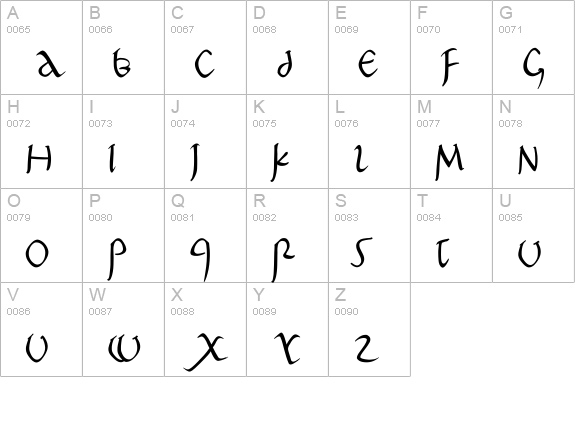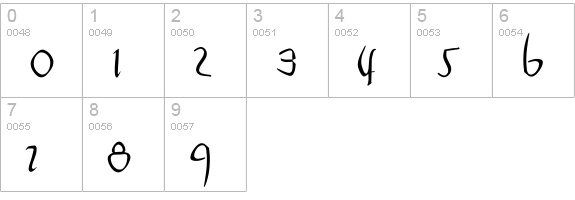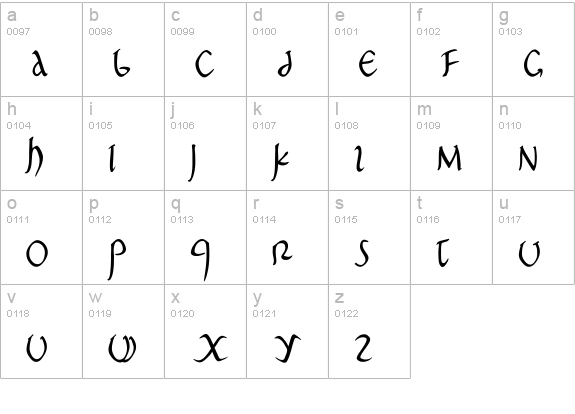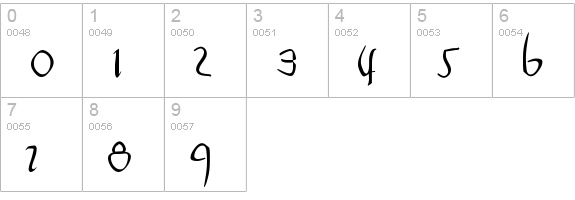
PompejiPetit Font Details
PompejiPetit is a stunning and elegant font that exudes sophistication and charm. Its timeless design is perfect for a wide range of projects, from branding to invitations to editorial layouts. The delicate serifs and graceful curves give PompejiPetit a refined and classic look that is sure to elevate any design. This versatile font is available for free download at FontsMarket.com, making it easily accessible to designers and creatives looking to add a touch of elegance to their work. Don't miss out on the opportunity to enhance your projects with the beauty of PompejiPetit!